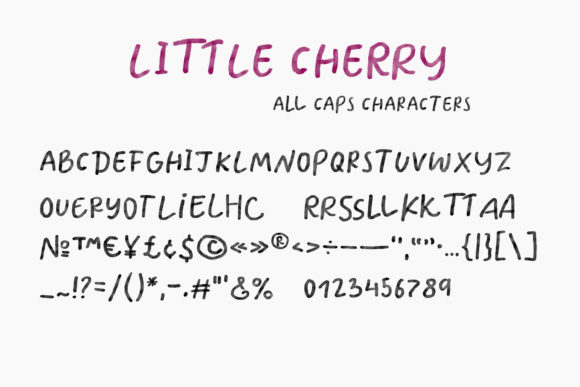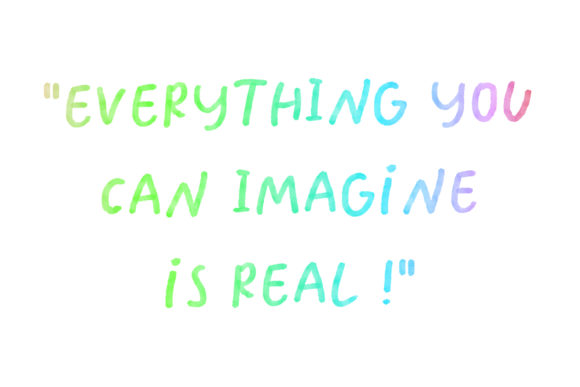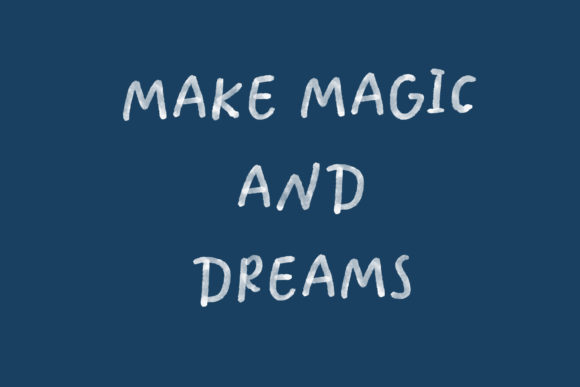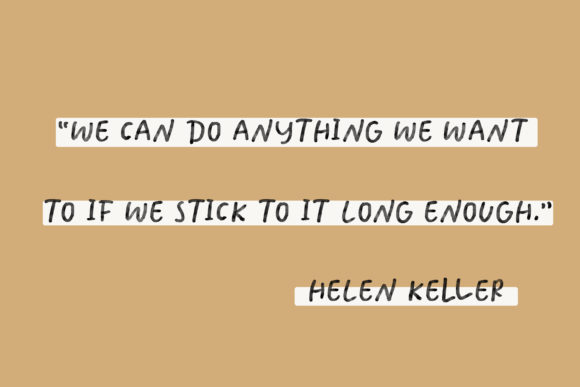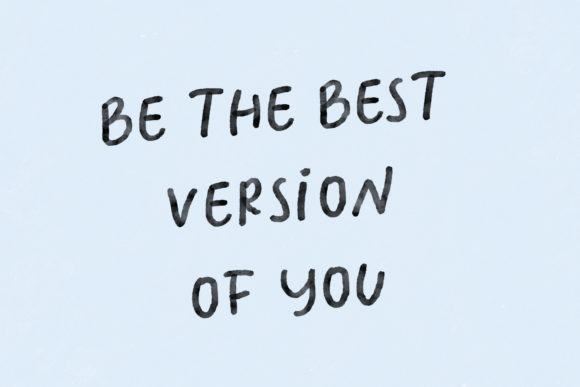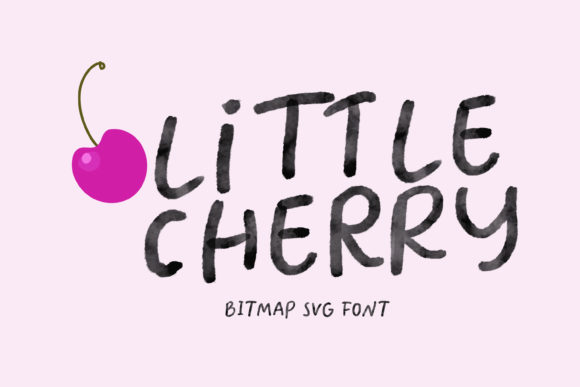
Introduction to Little Cherry is All Font Font
Fonts play a crucial role in design, and the Little Cherry is All Font font is a typeface that brings both character and versatility to any project. Whether you’re working on a branding project, a website, or a print design, the Little Cherry is All Font font offers a unique style that can elevate your work.
Little Cherry is All is a cute and simple lettered display font that can be used for all chalkboard quotes or teaching material.
Its authentic look will add a personal and realistic feel to your designs .
Key Features of Little Cherry is All Font Font
Why Choose Little Cherry is All Font Font?
The Little Cherry is All Font font is more than just a typeface – it’s a design tool that helps you communicate your message with style and clarity. Its unique character set and versatile design make it suitable for a wide range of applications, from elegant invitations to bold headlines.
With its carefully crafted letterforms and balanced proportions, the Little Cherry is All Font font ensures readability and visual appeal across all mediums.
What makes Little Cherry is All Font font special?
The Little Cherry is All Font font stands out with its unique design, exceptional readability, and versatility across various design applications.